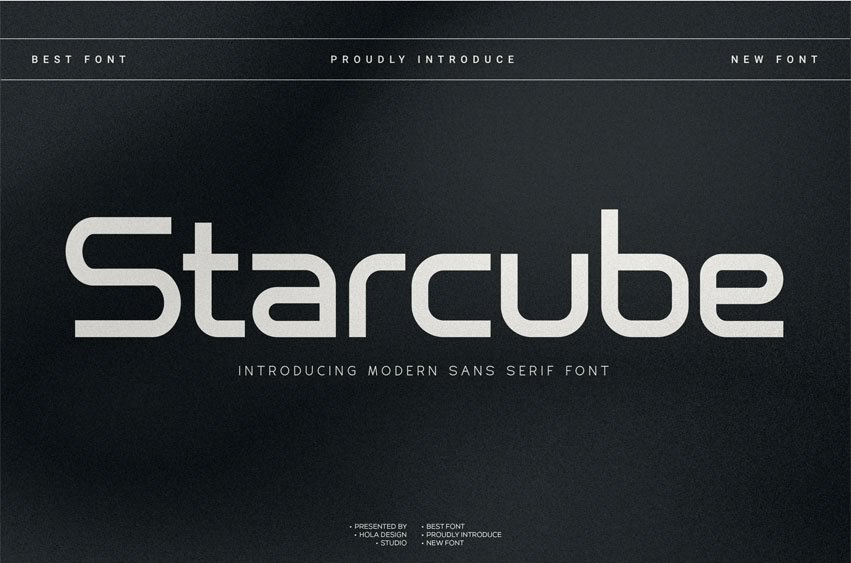
Starcube Font Ready to use for your design like labeling, movie sceen, poster, movie title, gigs, album covers, logos, and much more.
Perfectly crafted to meet all your design needs.